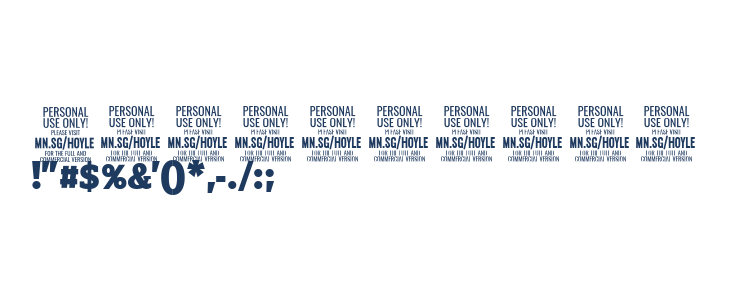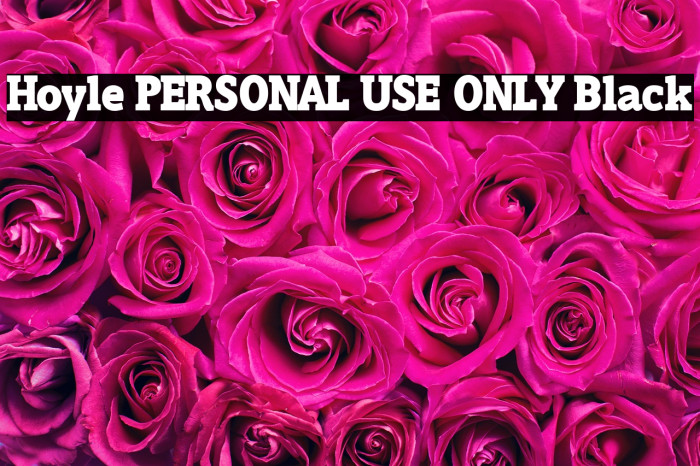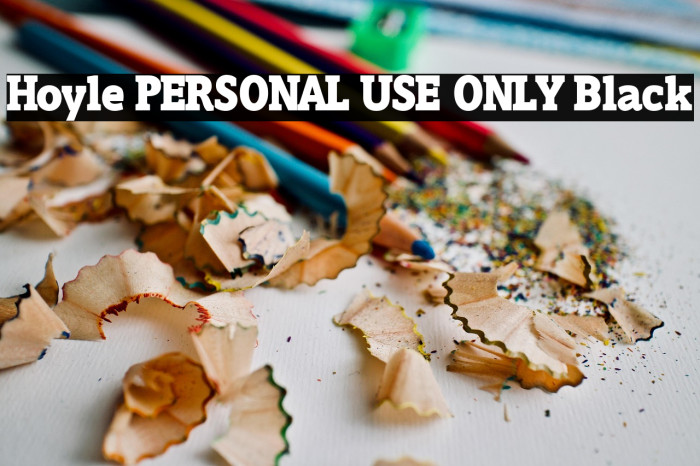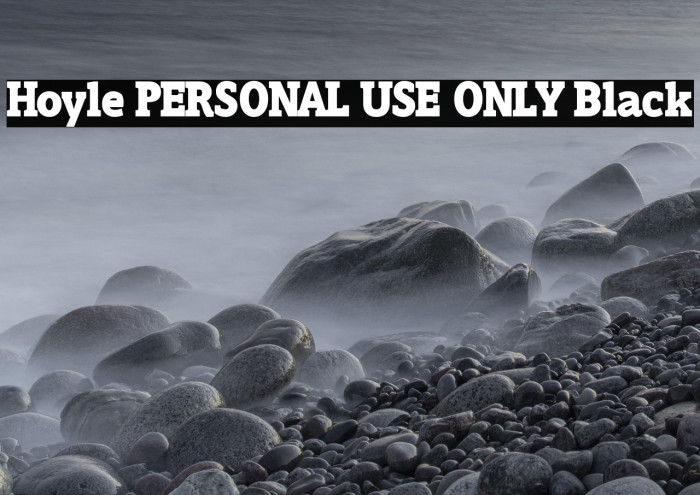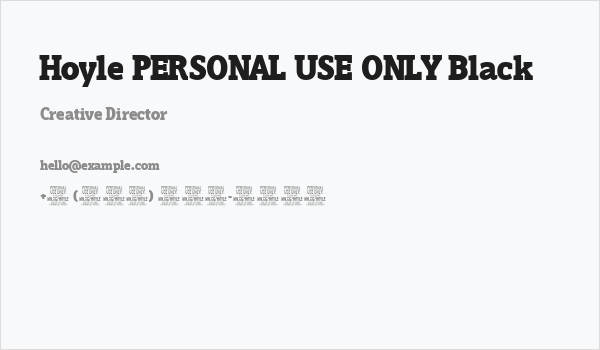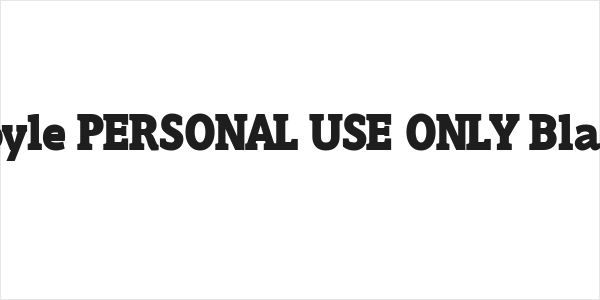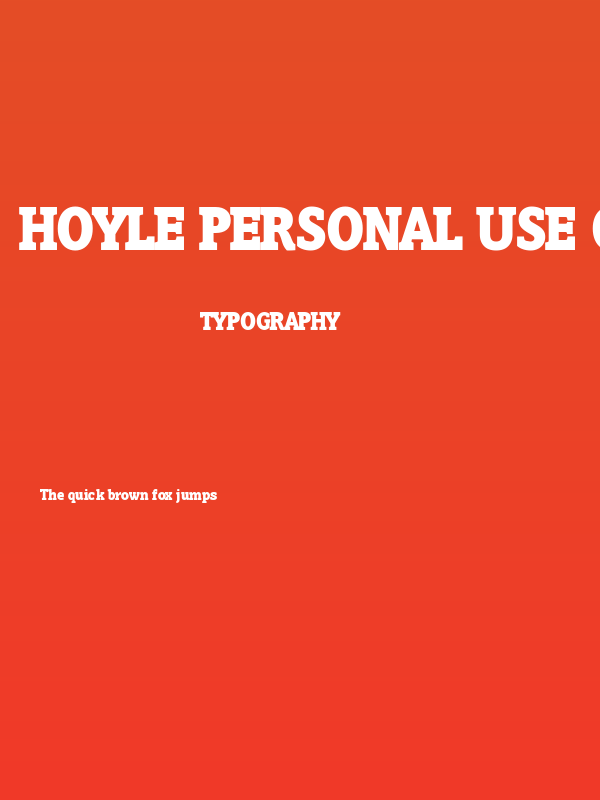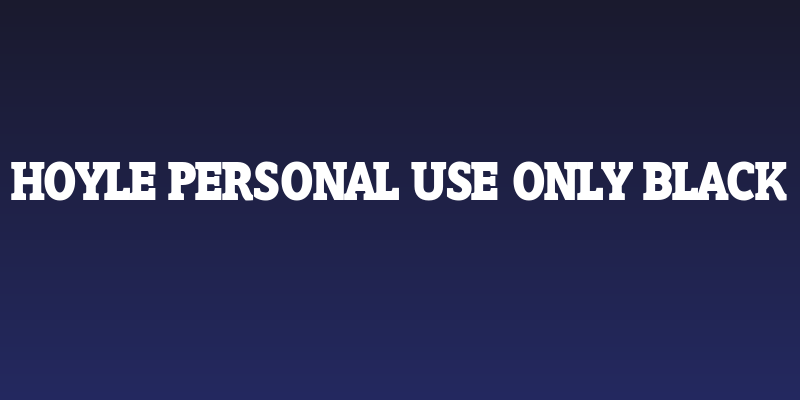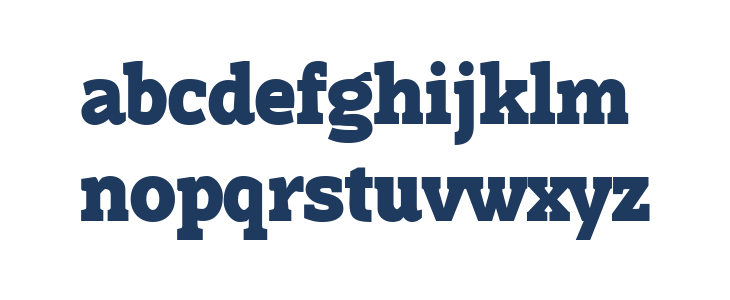
Hoyle PERSONAL USE ONLY Black Font
Hoyle PERSONAL USE ONLY Black Description
This font features bold, thick strokes with a strong presence, making it ideal for impactful designs. The uppercase letters are robust and commanding, while the lowercase letters maintain a consistent weight, providing a cohesive look. The numerals and special characters are equally bold, ensuring they stand out in any composition. The overall design is reminiscent of traditional serif fonts but with a modern twist, offering versatility for various applications. The font's boldness and clarity make it suitable for headlines, posters, and branding projects where visibility and impact are crucial.
| Use Case | Headlines, Posters, Branding |
| Proposed Projects | Ideal for headlines, posters, branding, and any project requiring a strong visual impact. |